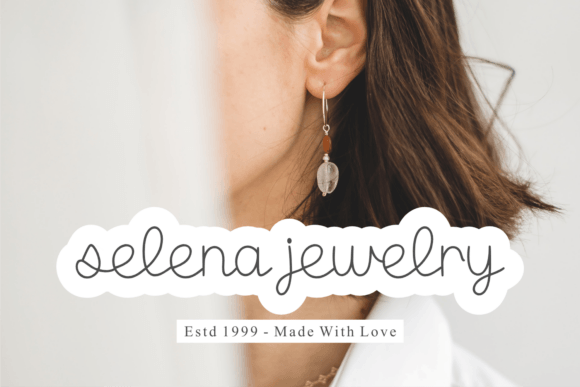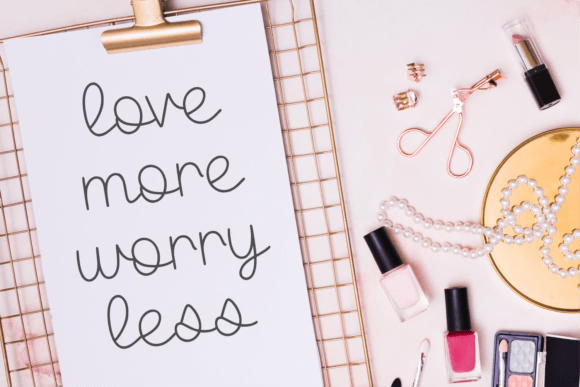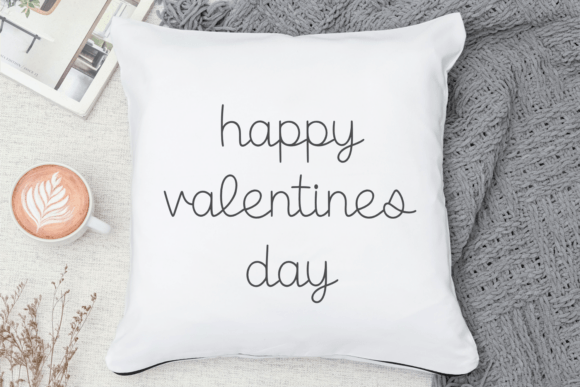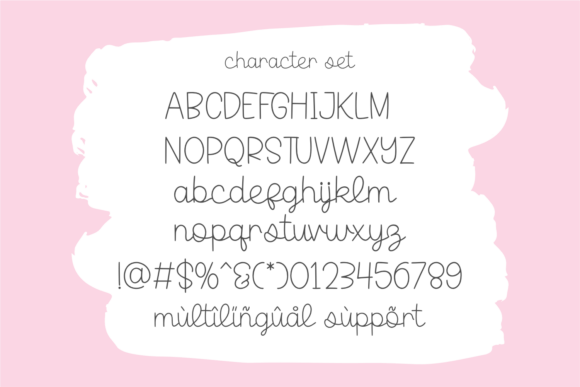
Introduction to Love Amour Font
Have you ever found yourself in the midst of a creative project, only to feel like something’s missing? The spark of inspiration hits, and you know exactly what your design needs – a dash of romance, a pinch of whimsy, and a whole lot of love. This is where the Love Amour Font comes in – a delightful and charming handwritten font that’s perfect for adding that special something to your next project.
Whether you’re working on a Valentine’s Day project, a wedding invitation, or simply a heartfelt social media post, the Love Amour Font is a valuable resource for designers. Its clean design and playful strokes make it easy to incorporate into any creative project, from digital designs to print materials. With its transparent background and high-quality design, you can trust that this font will elevate your work and leave a lasting impression.
Key Features of Love Amour Font
- Transparent Background: This font features a transparent background, making it ideal for creative projects where you want to maintain the original background.
- High Quality Design: Love Amour Font is designed with high-quality graphics, ensuring a crisp and clear display on various devices and resolutions.
- High Resolution: Love Amour Font is designed at a high resolution of 300 DPI, ensuring it looks great on both digital and print materials.
- Unique Characteristics: The font features elegant, cursive script with a touch of romance, making it perfect for creative projects such as wedding invitations, love letters, and valentine’s day designs.
- Perfect for Creative Projects: Love Amour Font is ideal for various creative projects, including wedding invitations, love letters, valentine’s day designs, and other romantic-themed projects.
Honest Review: Love Amour Font
I recently had the chance to work with the Love Amour Font, and I must say it’s been a game-changer for my creative projects. The high quality of this font is truly impressive, with crisp lines and elegant typography that elevates any design.
One of the standout features of the Love Amour Font is its versatility. It’s perfect for a wide range of design projects, from wedding invitations to fashion branding. The font’s romantic and whimsical feel makes it a great choice for any creative project that requires a touch of elegance.
Here are some of the things that work well with the Love Amour Font:
- ✨ High quality design that’s perfect for print and digital projects
- ✨ Elegant and romantic typography that adds a touch of sophistication to any design
While the Love Amour Font is a great design resource, there are a few limitations to be aware of:
- ⚠️ The font may not be suitable for designs that require a transparent background, as the design may not render correctly
- ⚠️ Some users may find the font’s romantic feel to be too over-the-top for certain design projects
Overall, I’m really impressed with the Love Amour Font. It’s a high-quality design resource that’s perfect for any creative project that requires a touch of elegance and sophistication. I’d definitely recommend it to any designer looking to add a little romance to their designs.